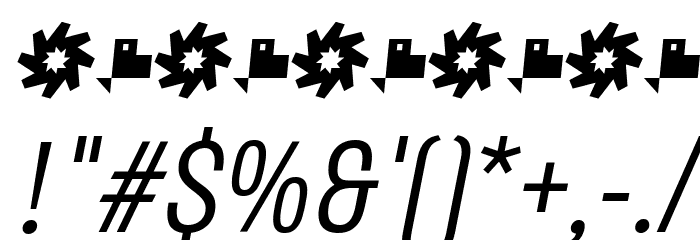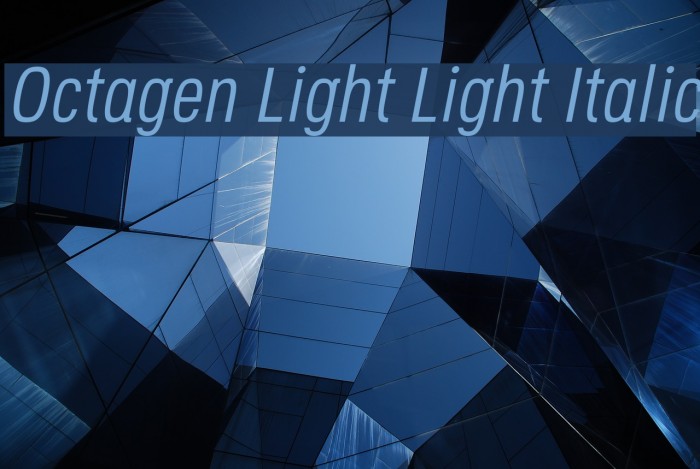
Octagen Light Light Italic Font
This font features a sleek and modern design with a light weight and italic style. The characters are slightly condensed, giving it a streamlined appearance. The strokes are consistent in thickness, providing a uniform look across all letters. The uppercase and lowercase letters maintain a harmonious balance, while the numerals and special characters are clear and legible. This font's elegant and contemporary style makes it suitable for a variety of design projects.
A sleek, modern, light italic font with a slightly condensed style.
- Proposed Projects: Ideal for branding, editorial design, websites, and modern advertising campaigns.